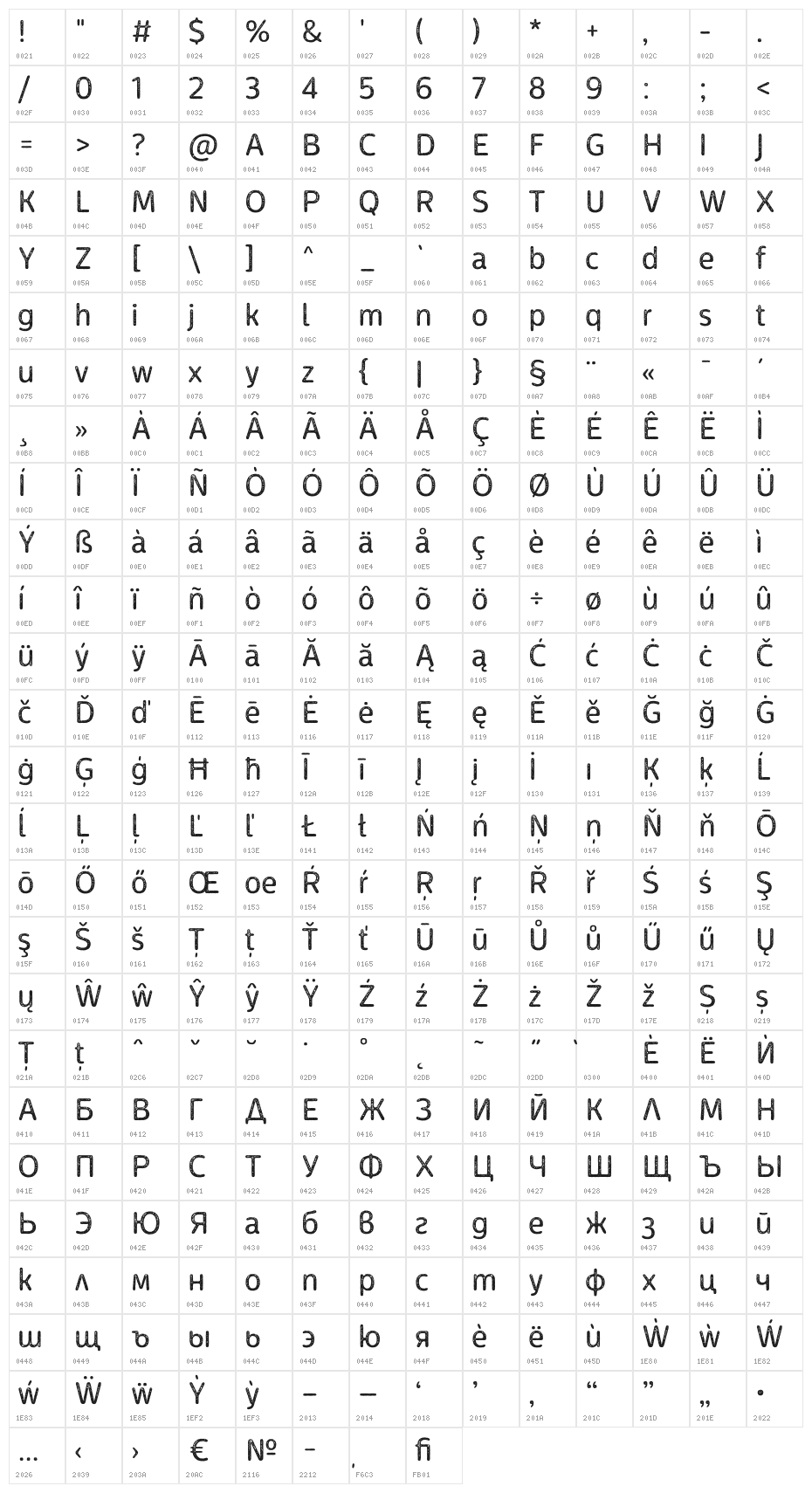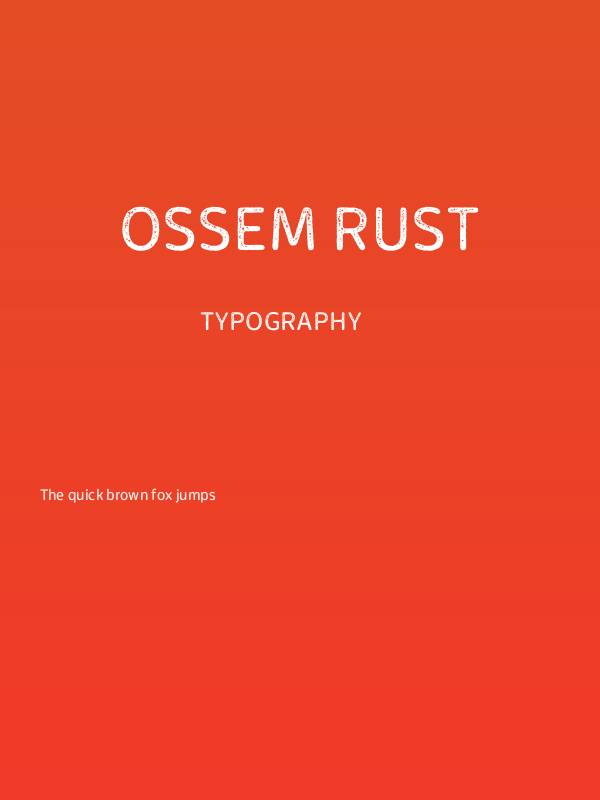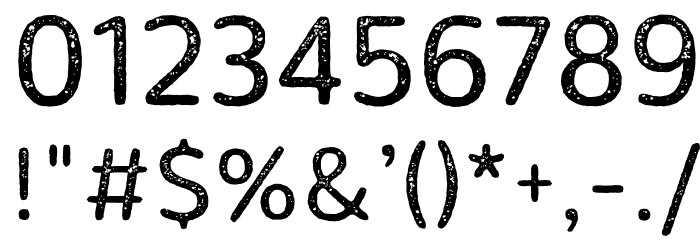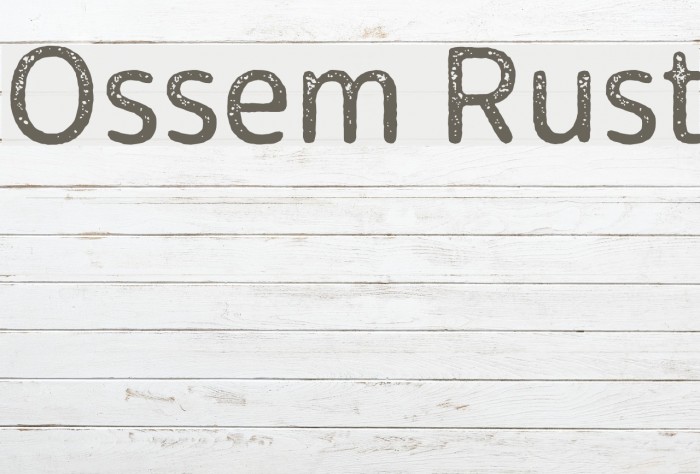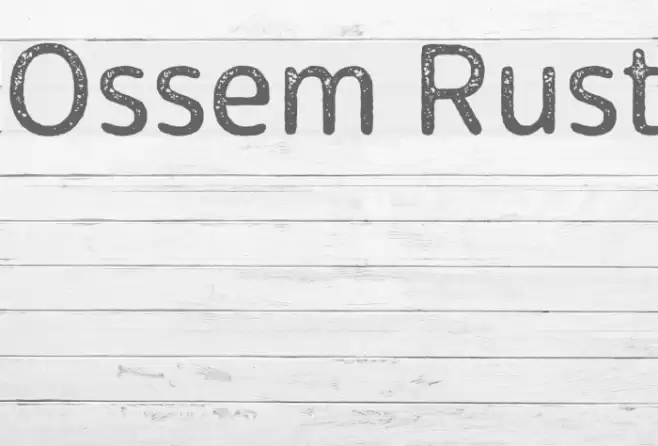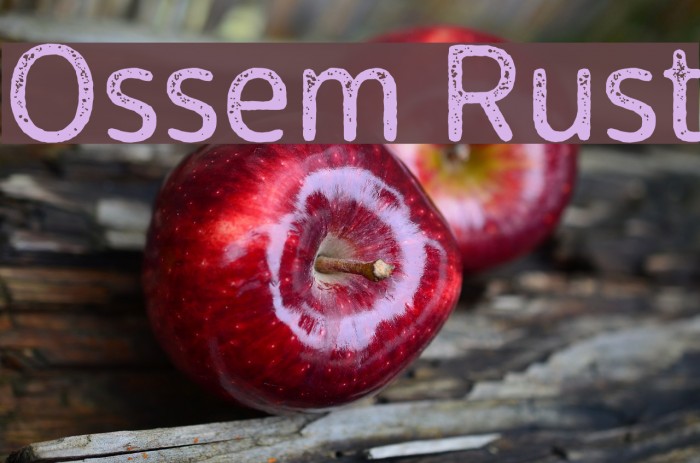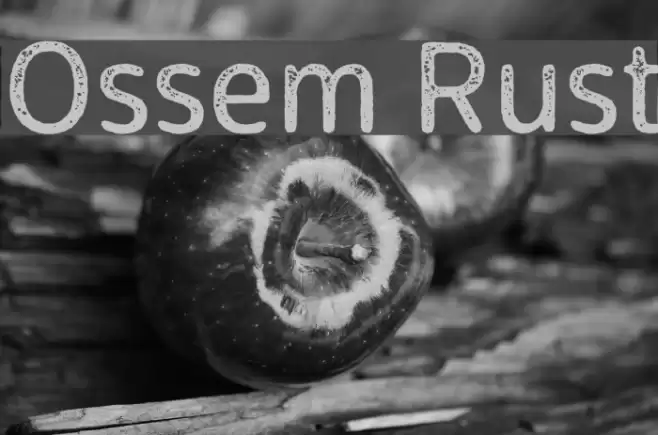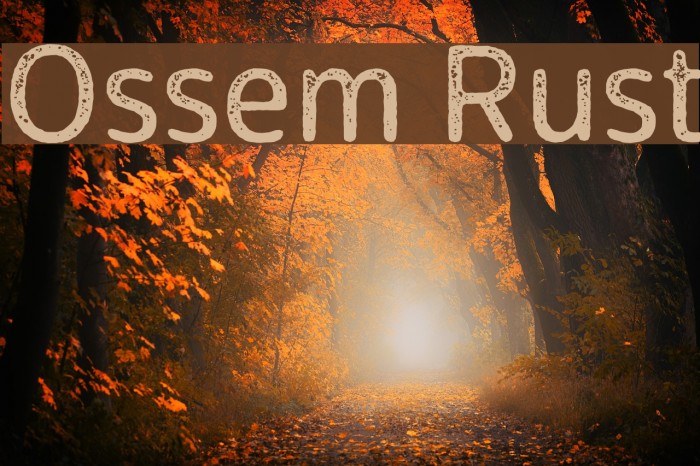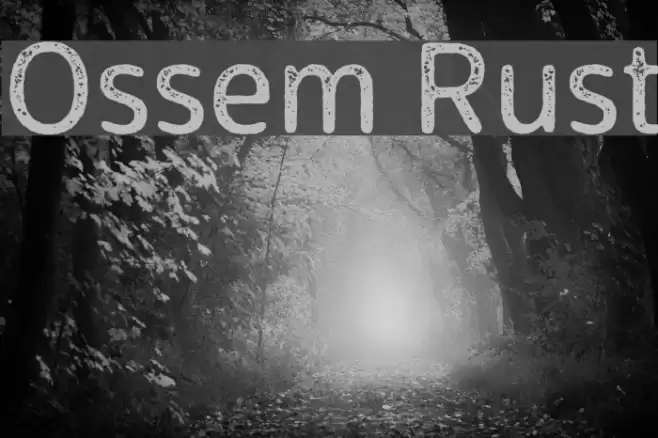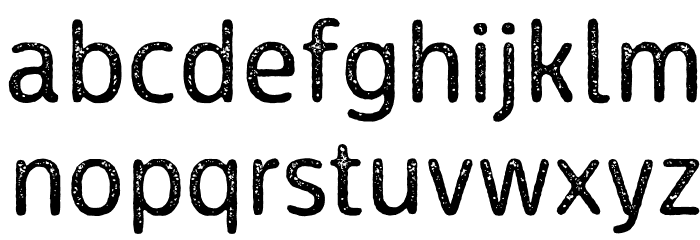
Ossem Rust Font
Ossem Rust Description
This font features a distinctive textured appearance, reminiscent of a weathered or distressed surface. The characters are bold and rounded, with a consistent thickness that gives them a sturdy and robust look. The texture adds a rustic charm, making it ideal for designs that require a vintage or handcrafted feel. The uppercase and lowercase letters maintain a uniform style, while the numerals and special characters are clearly legible, enhancing the font's versatility. It's perfect for projects that aim to convey authenticity and a touch of nostalgia.
| Overall Style | Vintage |
| Use Case | Logos, Headlines, Posters |
| Proposed Projects | Ideal for branding, packaging, posters, and any design requiring a vintage or handcrafted aesthetic. |